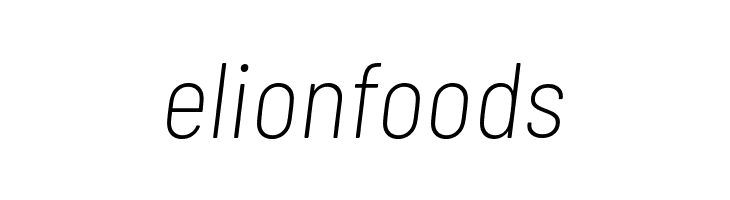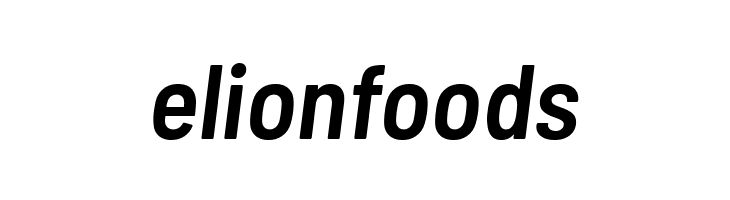
A modern, clean sans-serif font with consistent stroke width and excellent readability.
A modern, light sans-serif font with clean lines and balanced proportions.
A modern, clean font with a friendly and approachable design.
A modern, geometric sans-serif font with excellent legibility.
A modern, rounded sans-serif font with clean lines and balanced proportions.
A modern sans-serif font with medium weight and balanced design.
A sleek, modern, semi-condensed extra light italic font with clean lines and balanced spacing.
A modern, semi-condensed, semi-bold italic typeface with medium contrast and normal spacing.
A modern, semi-condensed, light italic sans-serif font with a sleek and elegant style.
A modern, semi-condensed italic sans-serif font with medium weight, ideal for dynamic and clear communication.